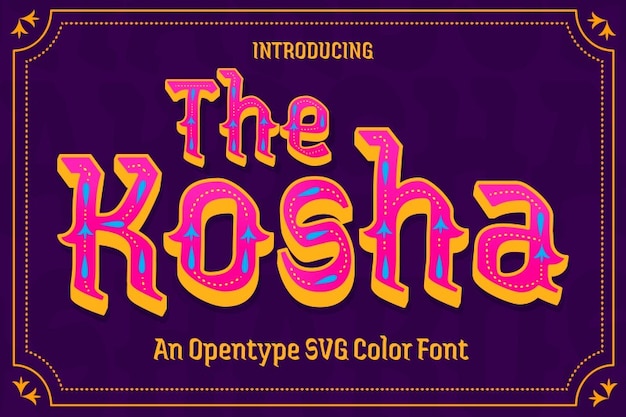
The Kosha
The Kosha Font
The Kosha is a glowing, celebratory typeface that captures the heart of Diwali’s festive light. With radiant gradients, bold shapes, and layered shadows, it radiates joy, tradition, and energy. Ideal for event posters, cultural branding, and any design that wants to shine with warmth and visual excitement.